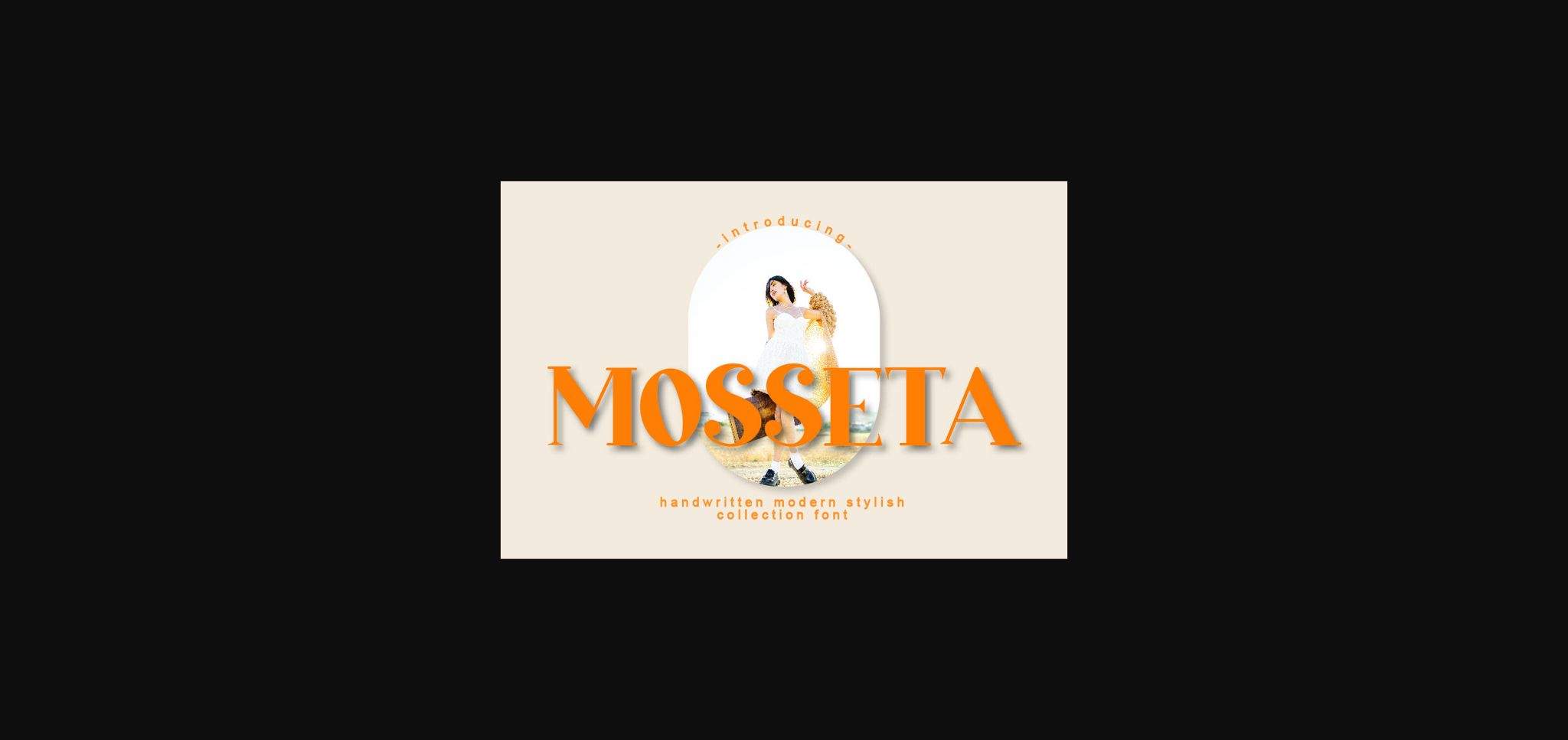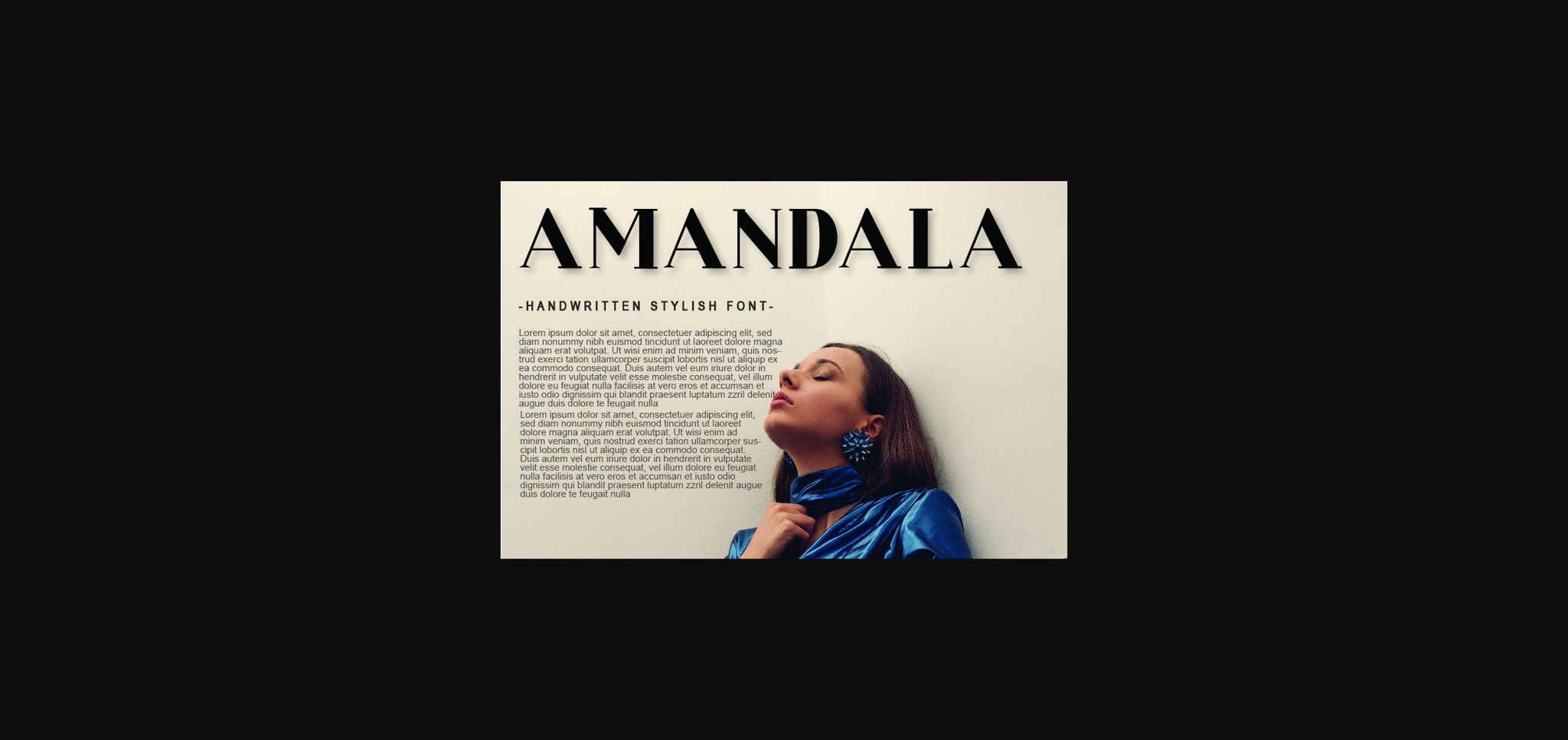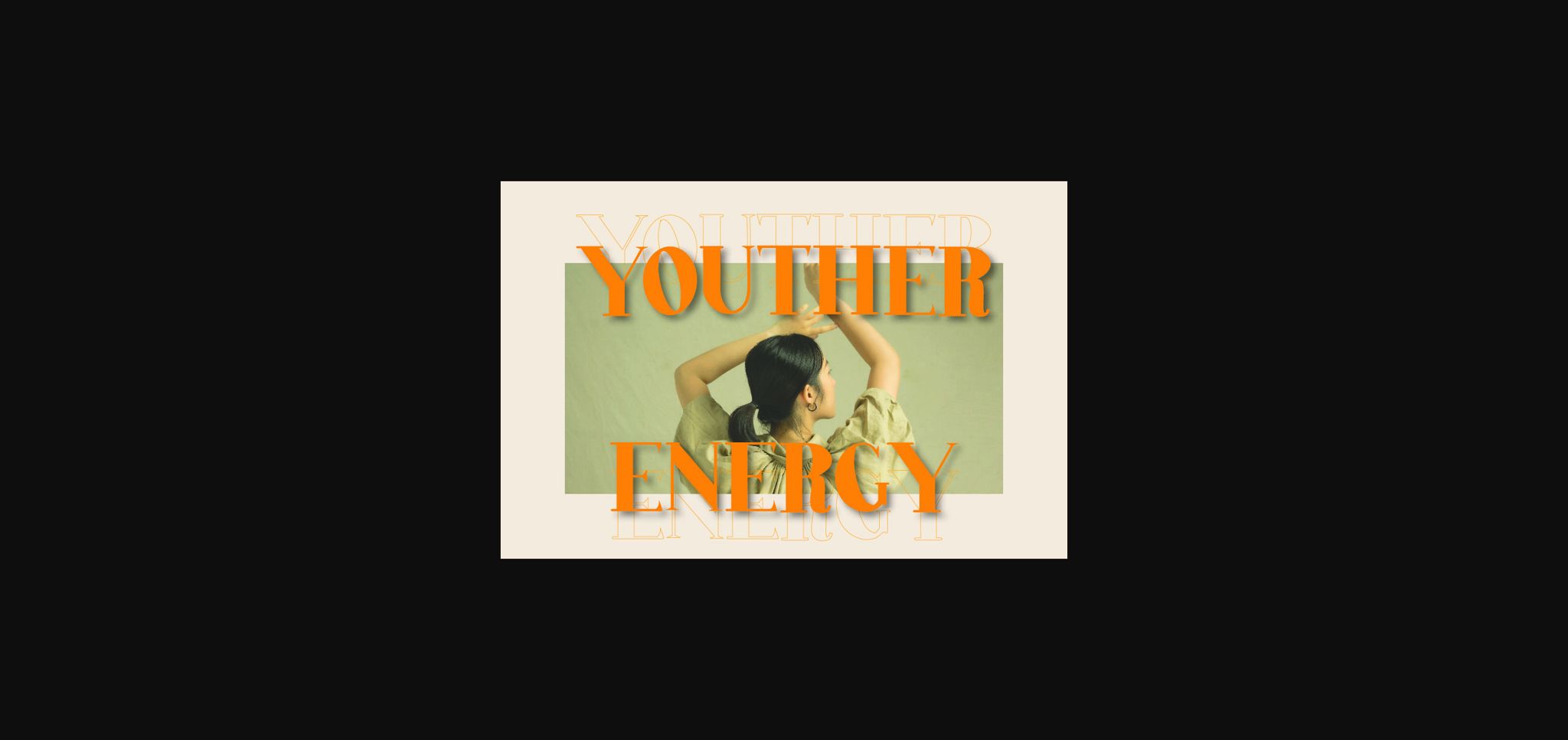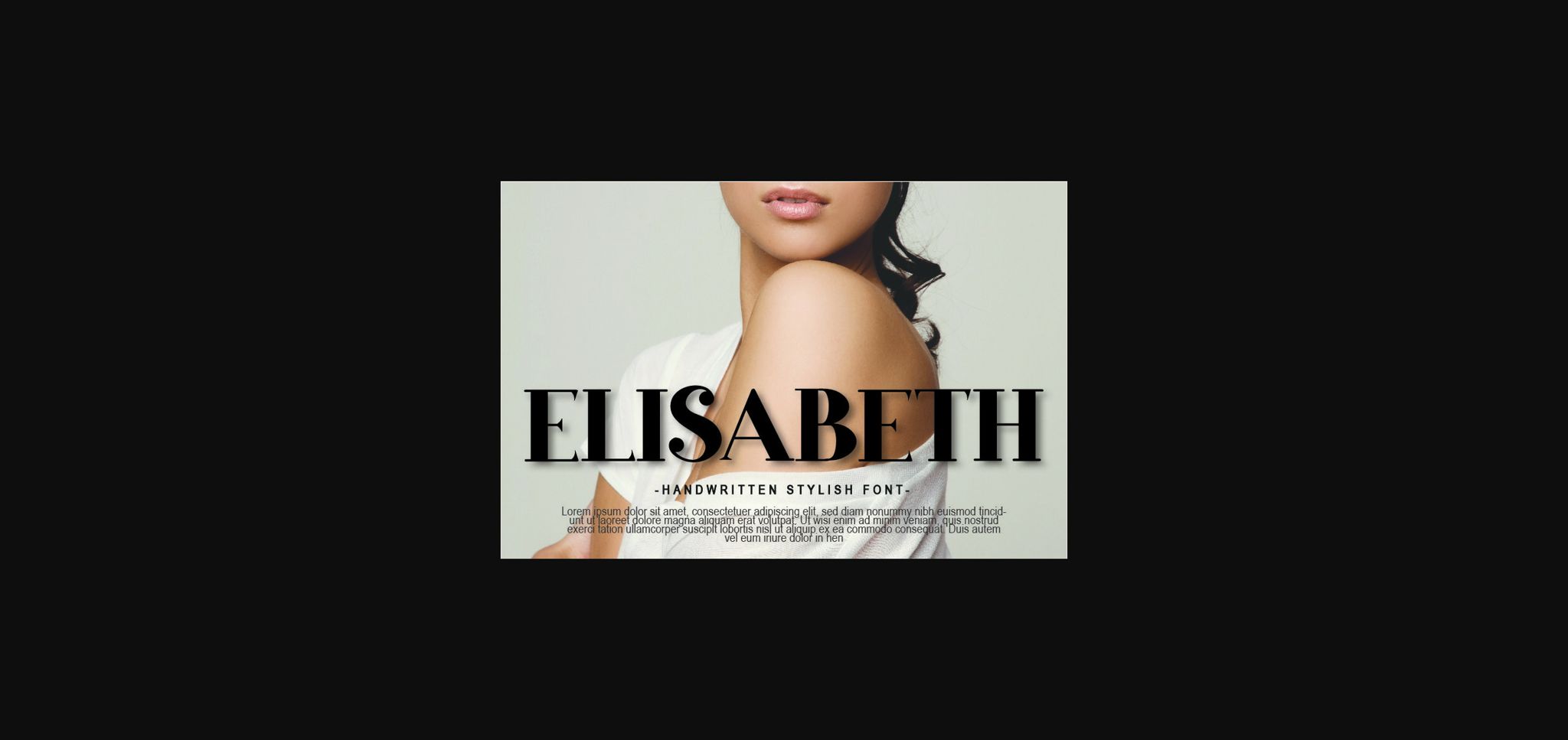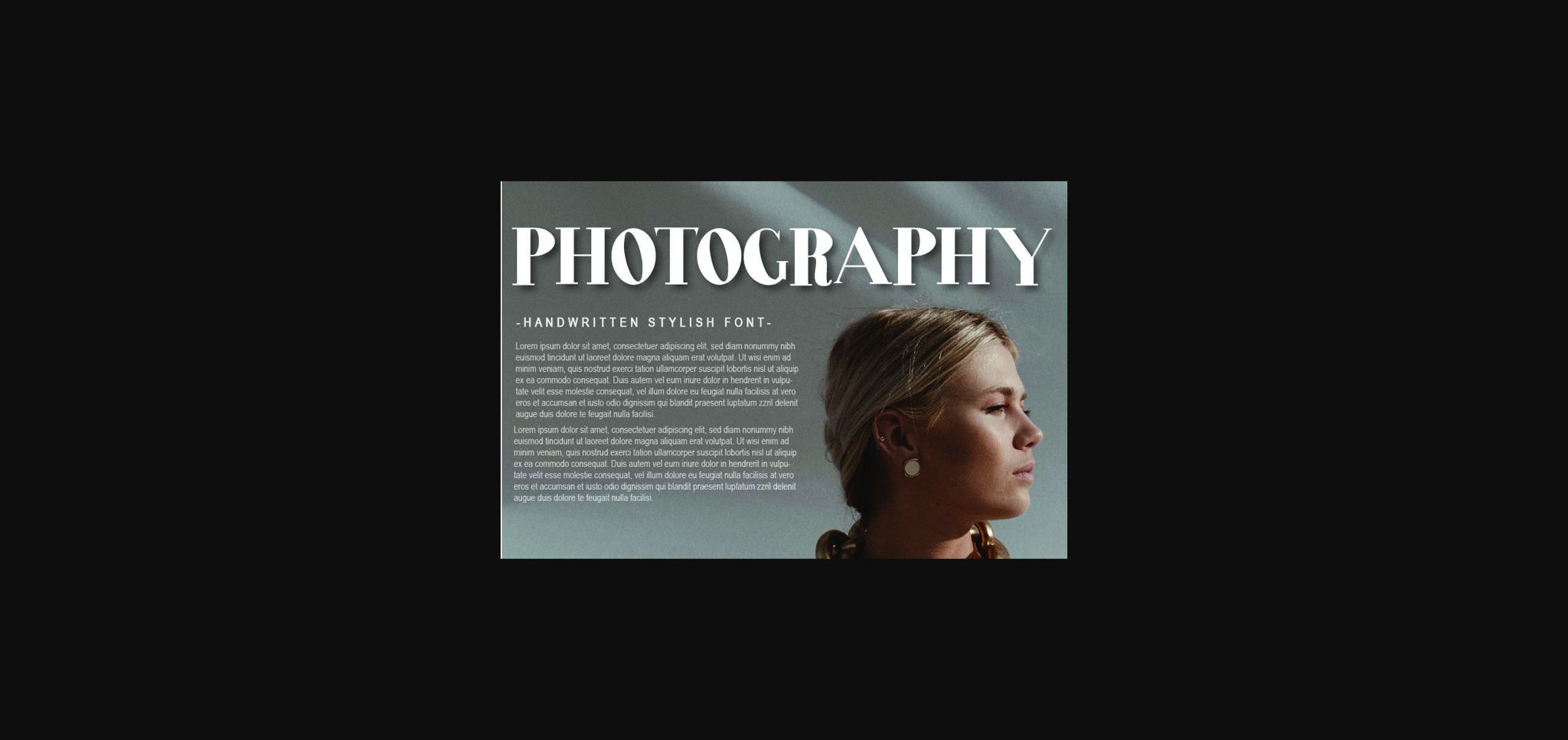
Mosseta Font
About Mosseta Font
Mosseta is an elegant font, presenting a very refined and classy look. A bold and cool font display that looks modern and futuristic. Add this font to your creative ideas, Mosseta is designed to enhance the beauty of your projects.